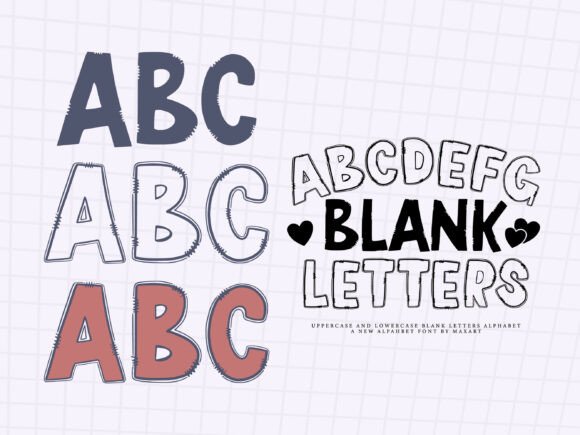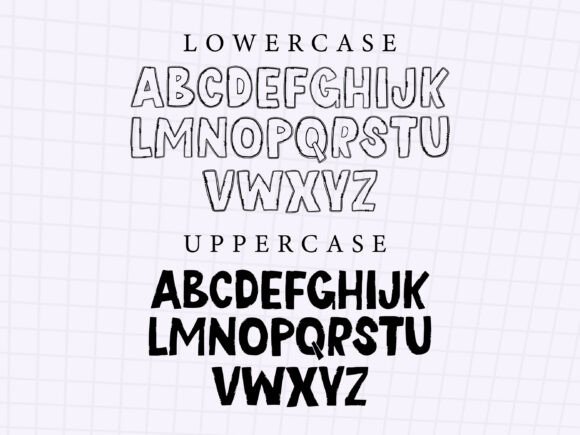
The Magic of Blank Letters Font: Elevate Your Creations
Remember the feeling of excitement when you’re working on a project that’s just about to come together? Maybe it’s a birthday party invitation, a fun DIY craft project, or even a custom T-shirt design. Whatever it is, the moment you add that perfect finishing touch is pure magic. For designers and creatives, finding the right font can be the difference between a great project and a truly amazing one.
Enter the Blank Letters Font – a cool, lettered, and display font that’s perfect for adding a playful touch to your favorite creations. With its whimsical details and festive flair, this font is ideal for projects that need a little extra magic, such as school quotes, kids’ designs, and holiday-themed crafts. The Blank Letters Font is a valuable addition to any designer’s toolkit, offering endless possibilities for creativity and self-expression.
Blank Letters Font Key Features
- Font Family: Blank Letters Font is a unique sans-serif font designed for creative purposes.
- Character Set: The font includes a wide range of characters, including uppercase and lowercase letters, numbers, punctuation marks, and special characters.
- Size: The font comes in a single weight, making it ideal for titles, headings, and other display typography.
- Unique Characteristics: Blank Letters Font features a distinctive design with blank or missing letters, creating a visually striking effect that can add an extra layer of meaning to text.
Blank Letters Font Review
Overall, I found the Blank Letters Font to be a unique and intriguing addition to any design project. Here are some of its strengths:
- ✨ The font’s simplicity is both its greatest asset and its most striking feature. The empty letters are a refreshing change from the usual bold or cursive fonts.
- ✨ The Blank Letters Font is highly versatile and can be used in a variety of contexts, from minimalist logos to elegant invitations.
- ✨ The font is also very easy to read, making it suitable for both digital and print applications.
However, I did encounter a few limitations:
- ⚠️ The font may not be suitable for projects that require a lot of text, as the empty letters can make it difficult to read large blocks of text.
In conclusion, I think the Blank Letters Font is a great addition to any designer’s toolkit, but it’s essential to use it judiciously and consider the project’s requirements before incorporating it.
The Blank Letters Font is perfect for creating minimalist designs, such as:
– Logos and branding materials
– Social media graphics and ads
– Infographics and data visualizations
– Quote graphics and typography-based art